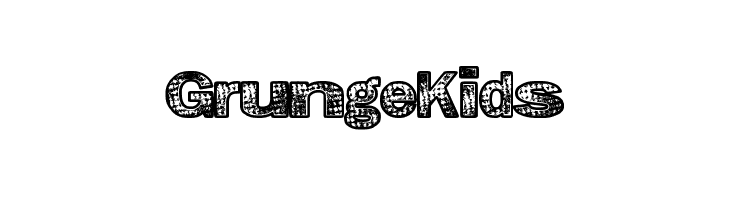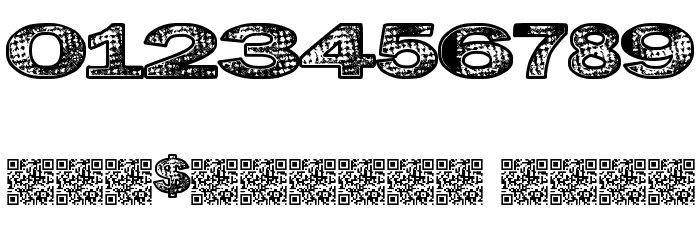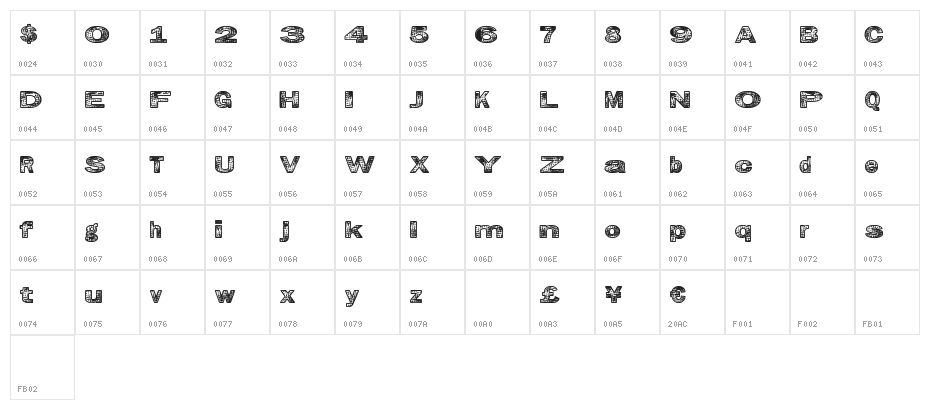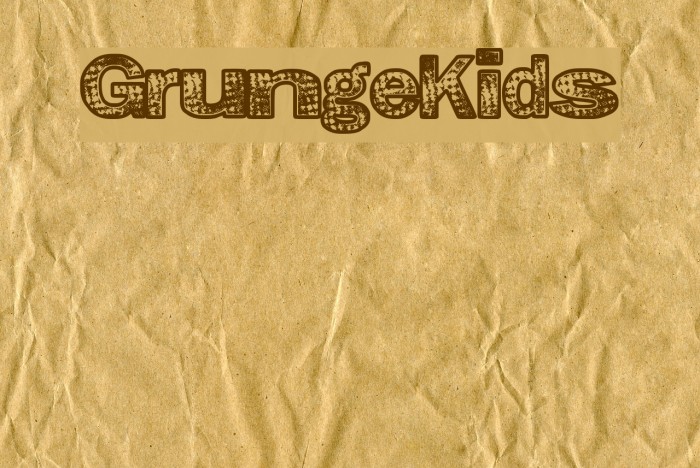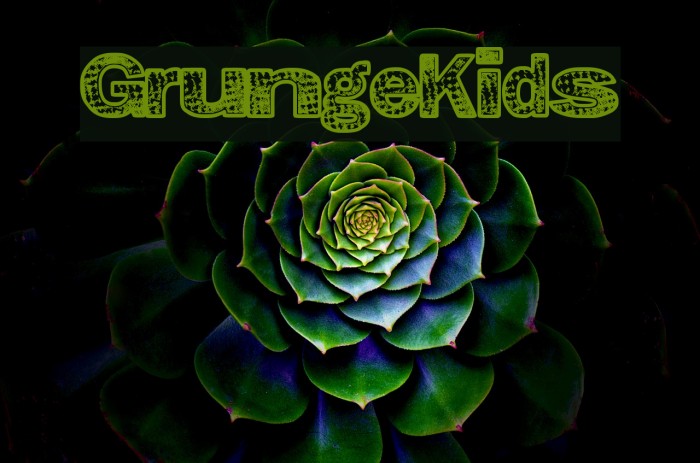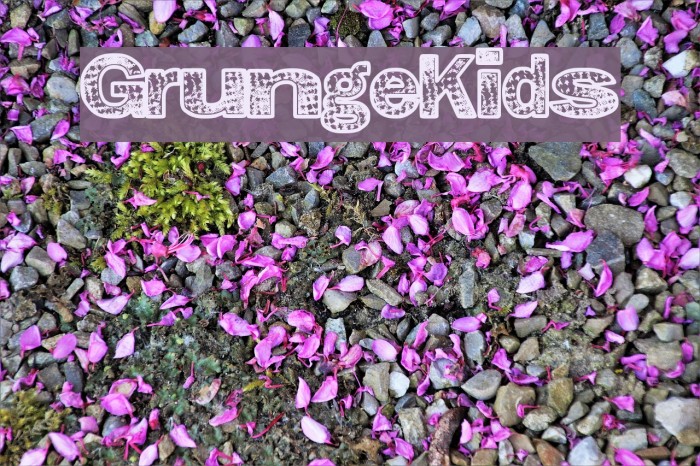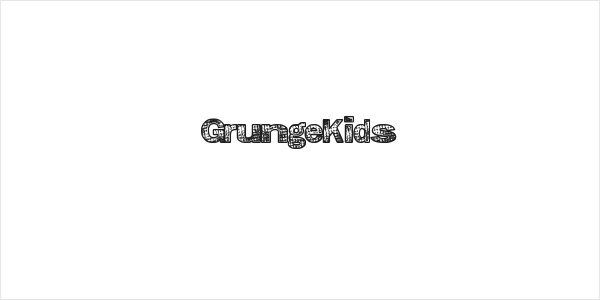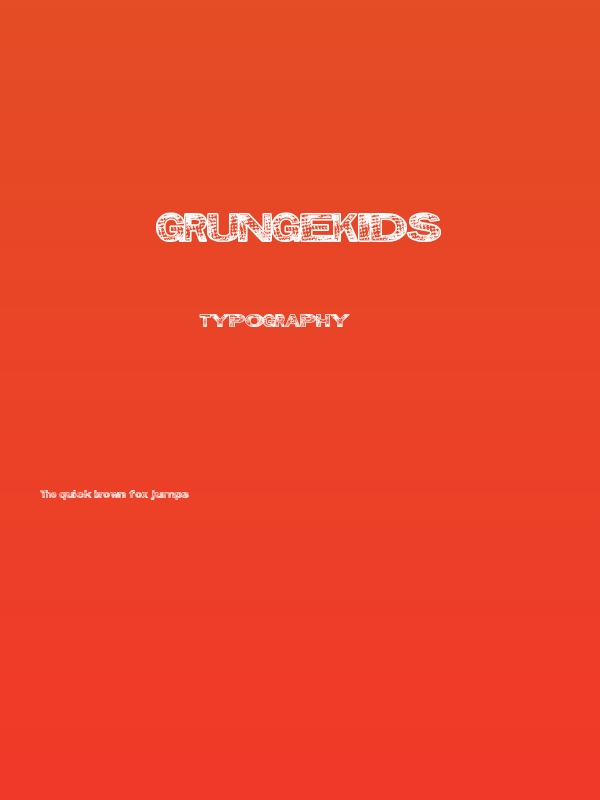
GrungeKids Font
GrungeKids Description
This font features a playful and textured design, characterized by a grunge aesthetic with a distressed, worn-out look. Each character is filled with a pattern of dots and scratches, giving it a unique, handcrafted appearance. The bold and chunky letterforms are eye-catching, making it suitable for creative and informal projects. The uppercase and lowercase letters maintain consistent styling, while the numerals and special characters complement the overall theme. This font's distinctive style is perfect for projects that aim to convey a sense of fun, creativity, and individuality.
| Overall Style | Grunge, Playful |
| Proposed Projects | Ideal for posters, album covers, children's book titles, and creative branding. |